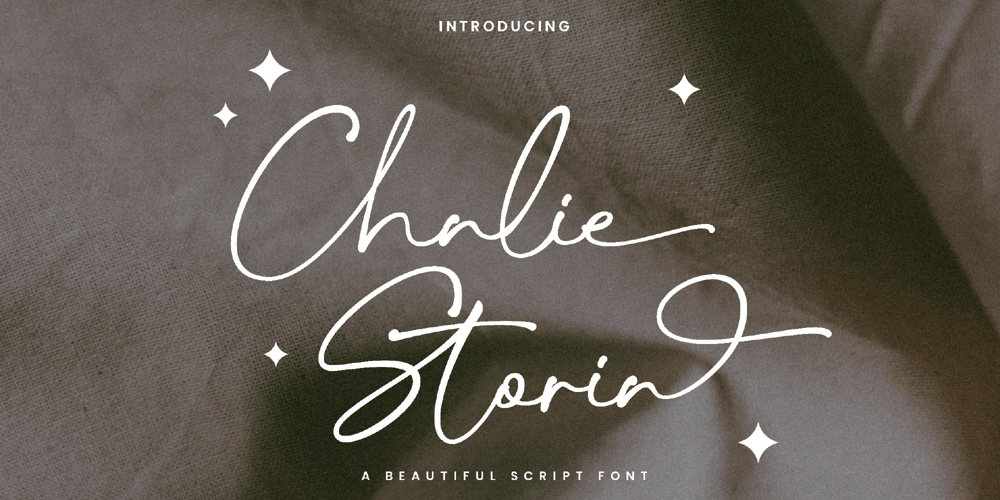
Chalie Storia Font Family was designed by Achmad Yani and published by Flawlessandco. Chalie Storia contains 1 styles and family package options. Introducing “Chalie Storia” is a mesmerizing script font that marries timeless elegance with modern sophistication.thetic. There’s some connected letters and some alternates that suitable for any graphic designs such as branding materials, t-shirt, print, business cards, logo, poster, t-shirt, photography, quotes .etcThis font support for some multilingual. Also contains uppercase A-Z and lowercase a-z, alternate character, numbers 0-9, and some punctuation.If you need help, just write me! Thanks so much for checking out my shop!